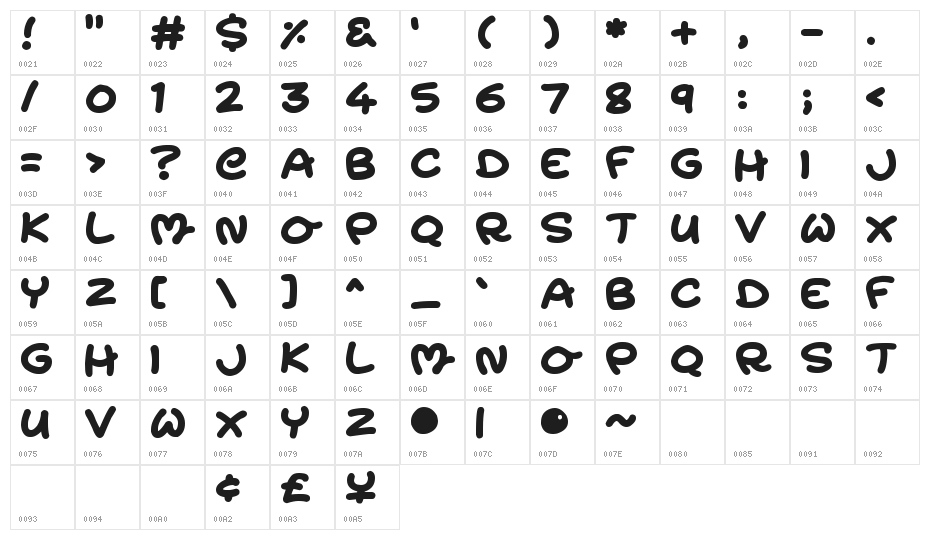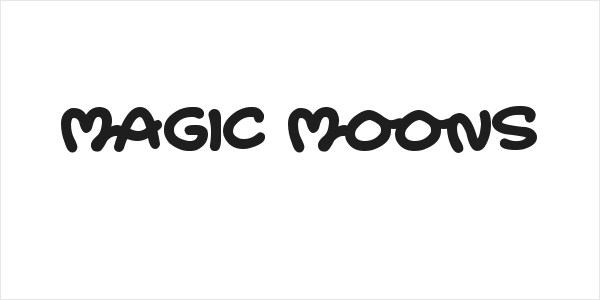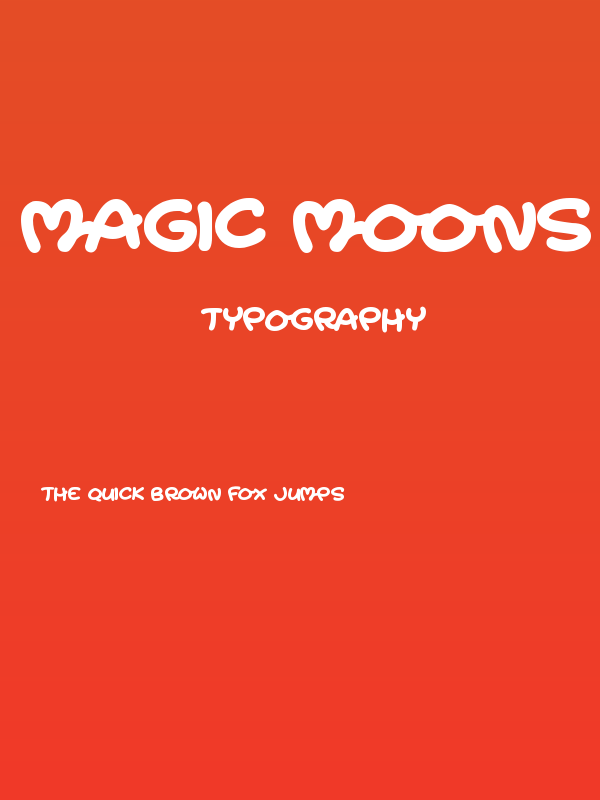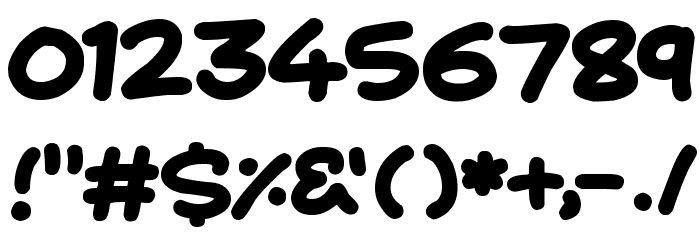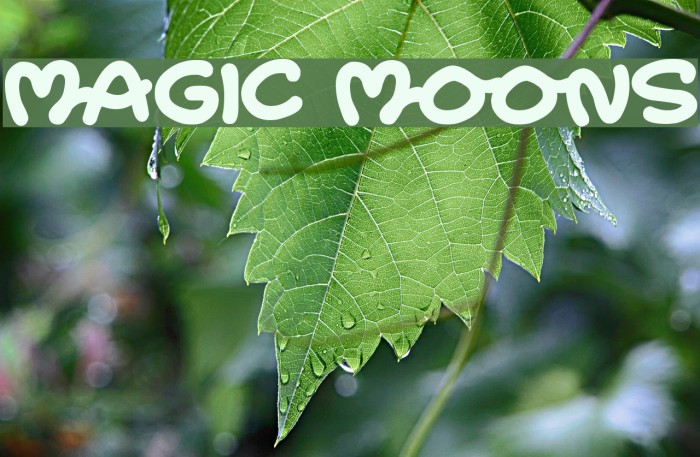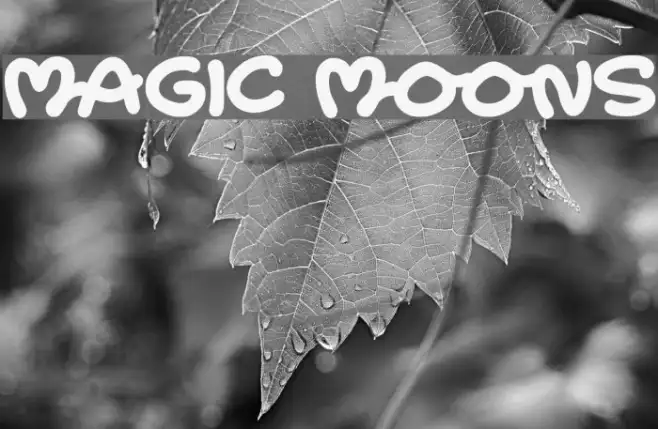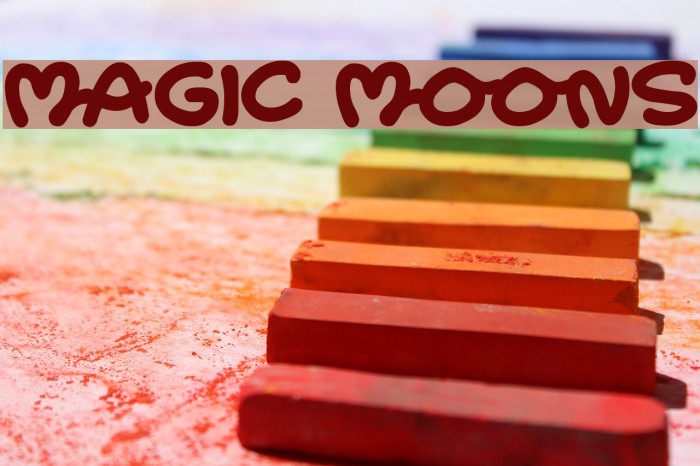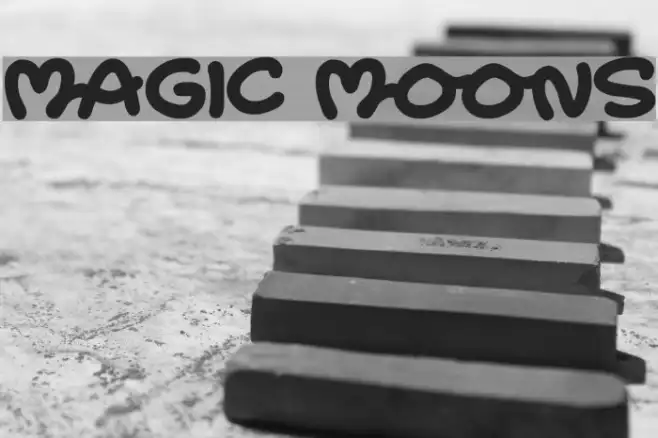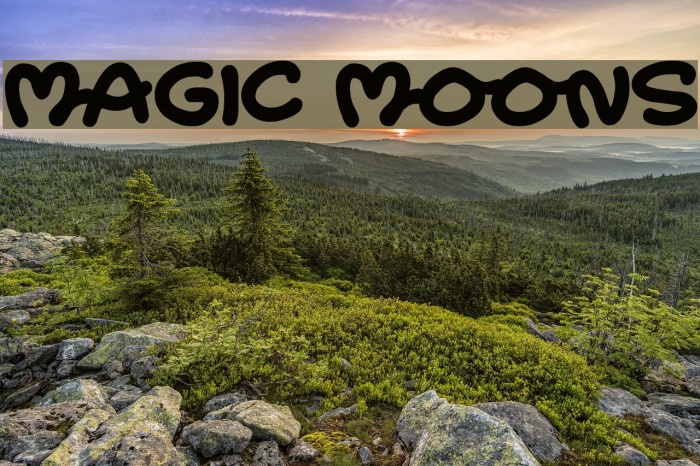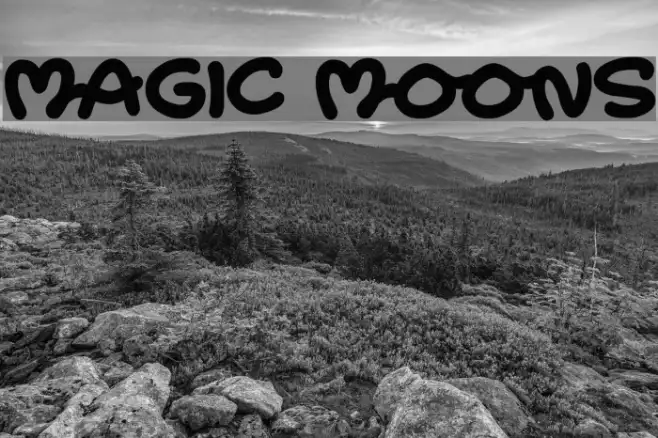
Magic Moons Font
Magic Moons Description
This playful and bold font features rounded, bubbly characters that convey a sense of fun and whimsy. The letters are thick and consistent in weight, with smooth curves and a slightly informal style. The numbers and special characters maintain the same playful aesthetic, making the font suitable for creative and lighthearted projects. Its distinct, cartoon-like appearance makes it stand out, while the uniformity in stroke width ensures readability. The font's overall design is cohesive, with a consistent character height and width, giving it a balanced and harmonious look.
Darrell Flood